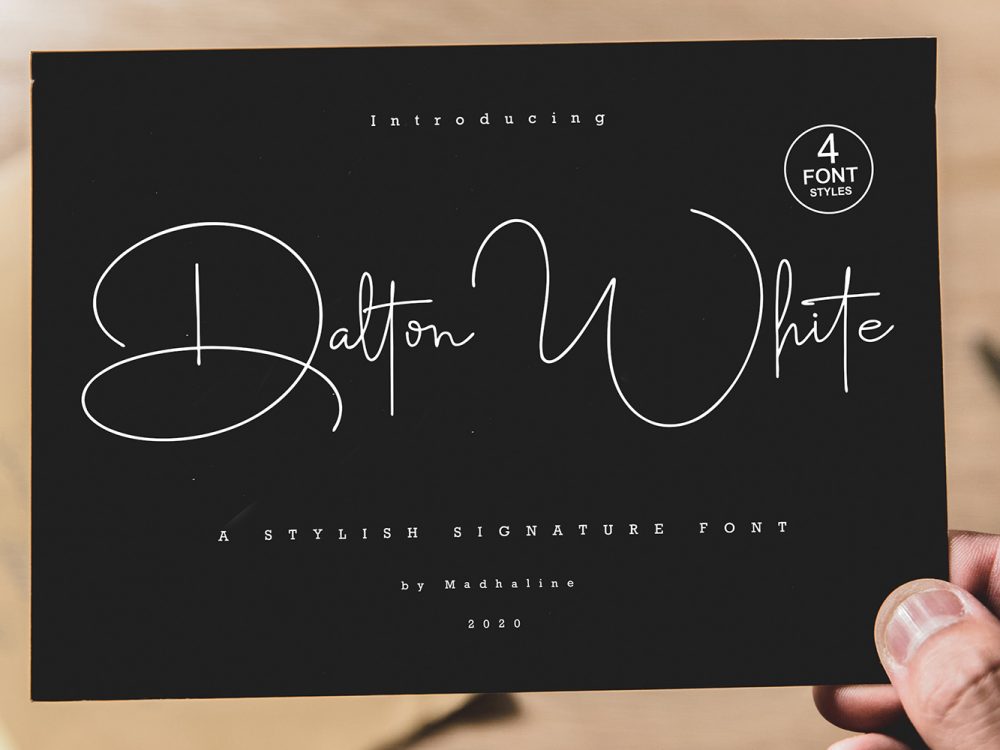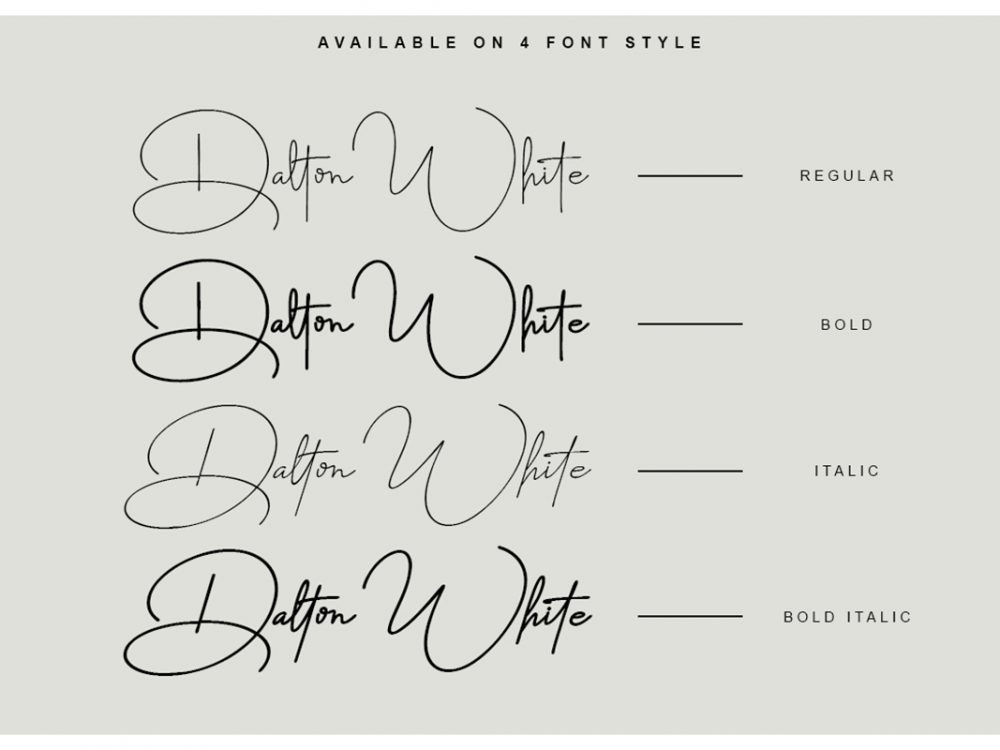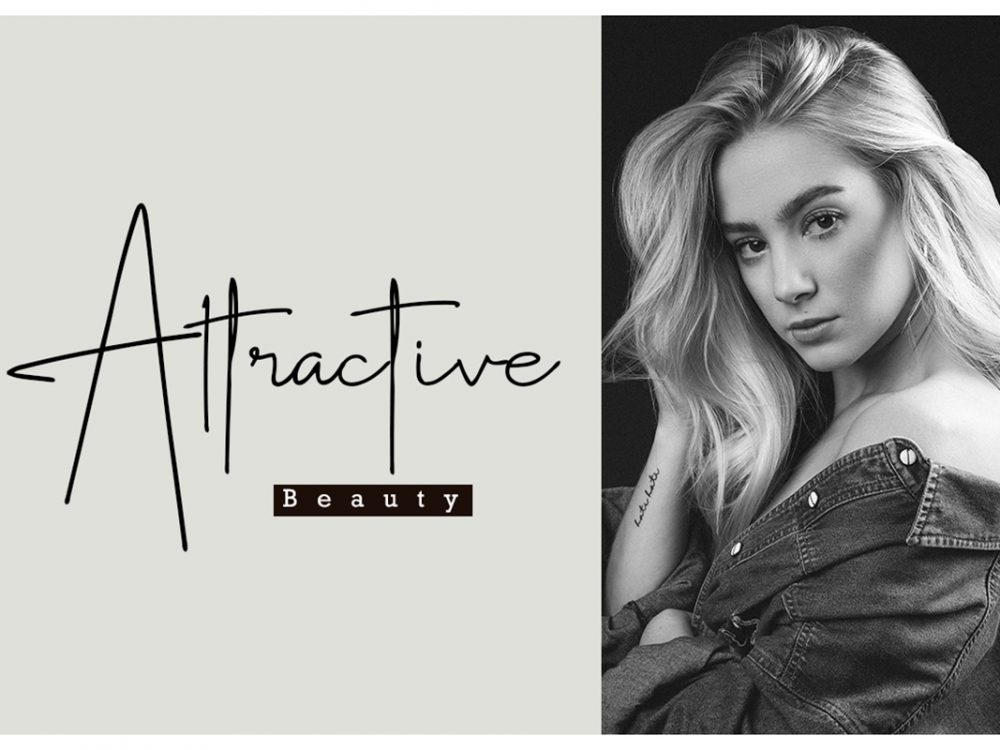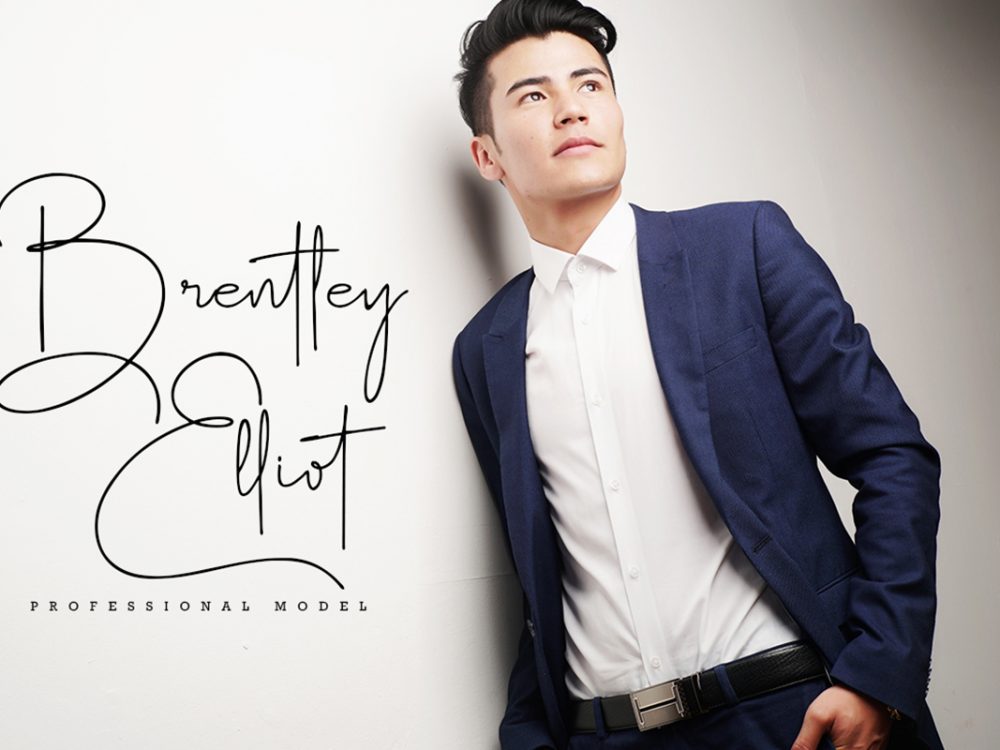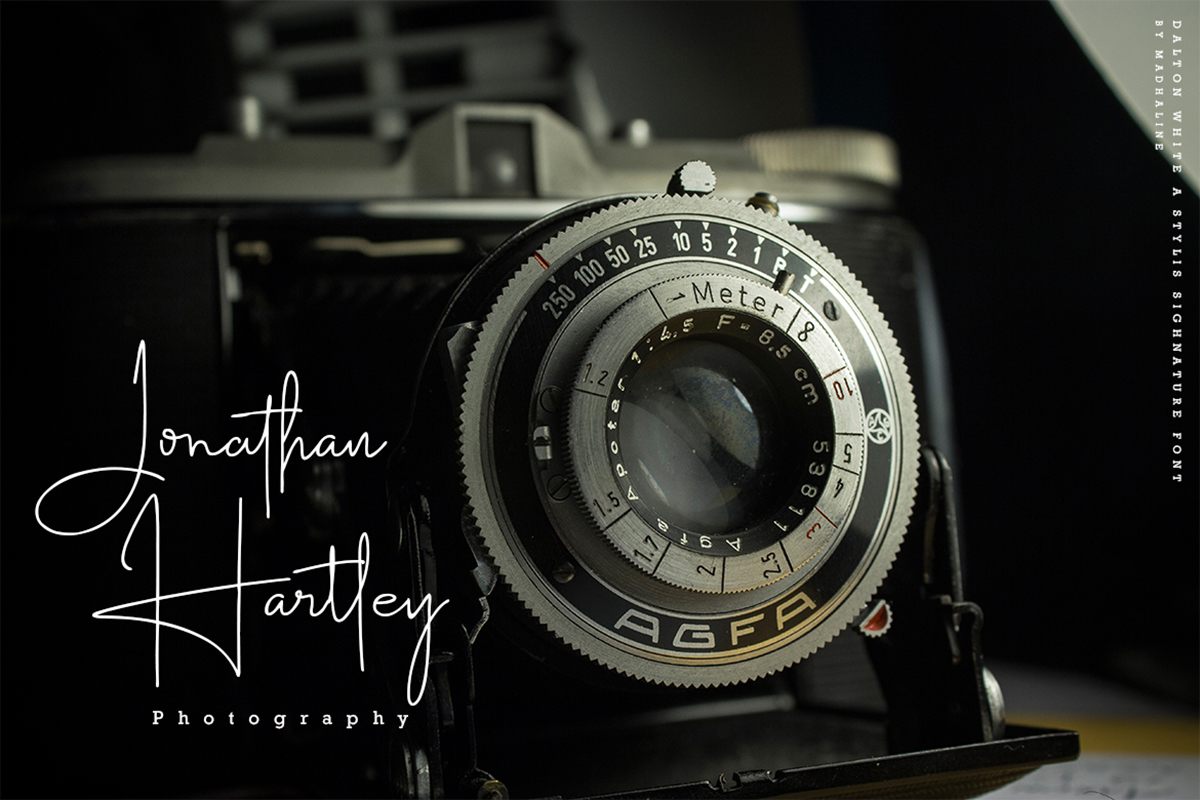
Dalton White Free Font
Dalton White Free Font is a beautiful handwritten font that simulates detailed brush writing and is very suitable for creating various design projects that require a scripted font. These can be posters, invitations, cards, branding, flyer prints, etc. If you wish to access more features and use them for commercial work please buy the full version.